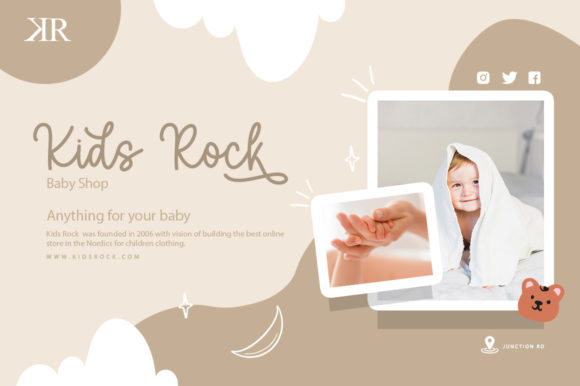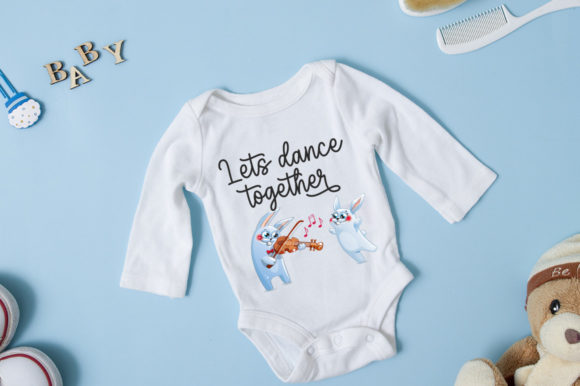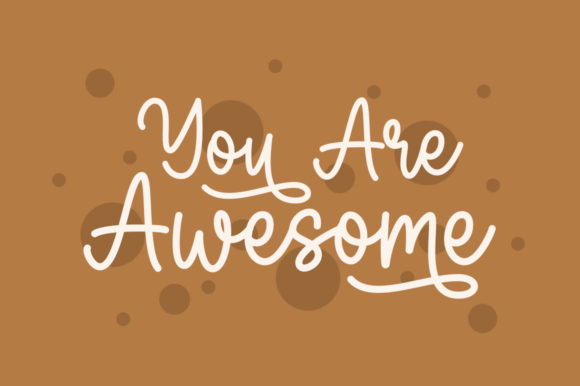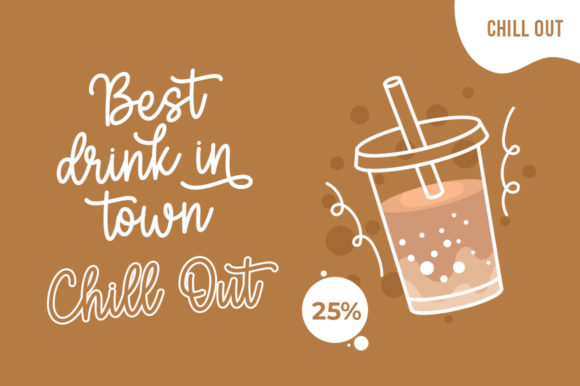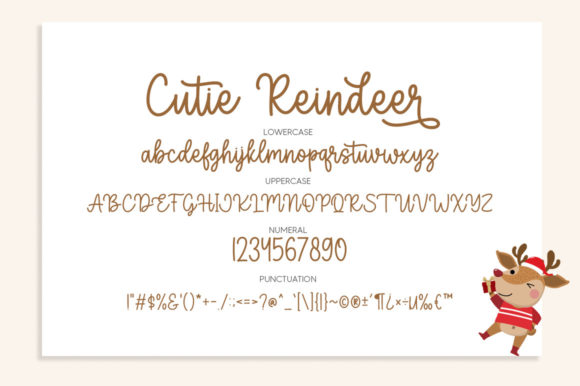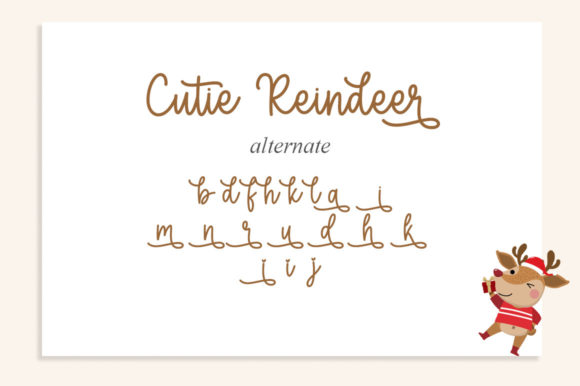
Introducing Cutie Reindeer Font: The Perfect Choice for Romantic and Festive Designs
Are you a designer or crafter looking for a font that exudes sweetness and romance? Look no further than the Cutie Reindeer Font! This dainty and flowing handwritten font is perfect for creating beautiful wedding invitations, cards, and other designs that require a personal touch. With its Christmasy feel and elegant flow, Cutie Reindeer is sure to capture the hearts of your audience.
What Makes Cutie Reindeer Font So Special?
Cutie Reindeer Font is a unique and charming typeface that boasts a range of characteristics that make it ideal for romantic and festive designs. Here are just a few of the features that set it apart:
- Dainty and flowing script: Cutie Reindeer Font features a beautiful, cursive script that is both elegant and refined. The letters flow smoothly into one another, creating a sense of movement and fluidity.
- Sweet and Christmasy feel: This font has a distinctly festive feel, making it perfect for holiday designs, wedding invitations, and other romantic projects.
- Romantic and personalized touch: With its whimsical and charming appearance, Cutie Reindeer Font adds a touch of personality to any design, making it perfect for couples looking for a unique and special way to express themselves.
Wedding invitations and cards are a great way to showcase the beauty of Cutie Reindeer Font. The font’s elegant flow and romantic feel make it perfect for:
- Wedding invitations: Create beautiful, one-of-a-kind wedding invitations that set the tone for your special day.
- Save-the-date cards: Announce your upcoming wedding with a sweet and festive save-the-date card.
- Thank-you cards: Express your gratitude to loved ones with a heartfelt, handwritten-style thank-you card.
Cutie Reindeer Font is a versatile typeface that can be used in a variety of design projects, including:
- Digital designs: Use Cutie Reindeer Font in digital designs, such as social media graphics, blog posts, and email newsletters.
- Print designs: Create beautiful print designs, such as brochures, flyers, and posters.
- Crafting projects: Add a personal touch to your crafting projects, such as handmade cards, scrapbooking, and DIY gifts.
Tips for Using Cutie Reindeer Font
To get the most out of Cutie Reindeer Font, here are a few tips to keep in mind:
- Pair with complementary fonts: Pair Cutie Reindeer Font with complementary fonts to create a unique and visually appealing design.
- Experiment with colors: Try out different colors and color combinations to find the perfect match for your design.
- Use in combination with graphics: Combine Cutie Reindeer Font with beautiful graphics and illustrations to create a stunning design.
In conclusion, Cutie Reindeer Font is a beautiful and charming typeface that is perfect for designers and crafters looking to add a touch of romance and festivity to their designs. With its dainty and flowing script, sweet and Christmasy feel, and romantic and personalized touch, Cutie Reindeer Font is sure to capture the hearts of your audience. So why wait? Download Cutie Reindeer Font today and start creating your own beautiful designs!